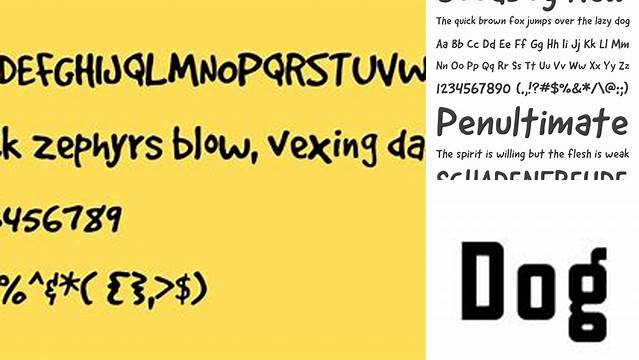
Introduction to Good Dog Font: A Playful and Versatile Typeface
Hey guys! Are you on the hunt for a font that perfectly balances playfulness and versatility? Look no further! The Good Dog font is here to add a touch of whimsy and charm to your projects. In this article, we're going to dive deep into what makes the Good Dog font so special, its features, its versatility, and why it might just be the perfect addition to your font library. Whether you're designing a children's book, creating eye-catching social media graphics, or sprucing up your website, understanding the ins and outs of the Good Dog font will help you make the most of its unique characteristics. This font isn't just about looking good; it's about communicating a feeling, an emotion, a vibe that resonates with your audience. We'll explore how this font can be used in various design contexts, from branding to editorial design, and give you practical tips on how to integrate it seamlessly into your projects. So, buckle up, font enthusiasts, and let's explore the wonderful world of the Good Dog font! We'll cover everything from its design inspiration to the nitty-gritty details of its licensing, ensuring you're well-equipped to use it effectively and legally. And don't worry, we'll keep it light and fun – because that's what the Good Dog font is all about!
What Makes the Good Dog Font Special?
So, what's the secret sauce that makes the Good Dog font stand out from the crowd? Well, it's all about its unique blend of fun and functionality. This font isn't your typical serious typeface; it's got personality! Think rounded edges, playful curves, and a generally friendly vibe. But don't let its playful nature fool you – it's also incredibly versatile. The Good Dog font is designed to be legible and readable in a variety of contexts, making it a great choice for everything from headlines to body text. One of the key things that sets this font apart is its attention to detail. The designers have clearly poured their hearts into creating a typeface that is both visually appealing and highly functional. Each character has been carefully crafted to ensure a consistent and harmonious look, whether you're using it in a large display or in smaller text sizes. The font's distinct personality shines through in its unique letterforms, which are full of character and charm. This makes it an excellent choice for projects that need a touch of warmth and approachability. Whether you're working on a project for kids, a friendly brand identity, or any design that needs a dose of fun, the Good Dog font is a fantastic option. Plus, the fact that it's available for free download makes it even more appealing! It's a fantastic way to add a professional touch to your projects without breaking the bank. But remember, free doesn't mean you should skimp on quality – the Good Dog font is a testament to how excellent design can be accessible to everyone. We'll delve more into its specific features and how you can best utilize them in the following sections.
Let's get down to the nitty-gritty and talk about the key features and characteristics of the Good Dog font. First off, you'll notice its rounded terminals and soft, flowing lines. These design elements give it a friendly and approachable feel, making it perfect for projects that need a touch of warmth. The font also boasts excellent legibility, which means it's easy to read in both large and small sizes. This is crucial for ensuring your message gets across clearly, whether you're designing a poster or writing body text for a website. Another standout feature is its versatility. The Good Dog font comes in a variety of weights and styles, giving you plenty of options to play with. You can choose from light, regular, bold, and even italic versions, allowing you to create a wide range of looks and feels. This flexibility makes it suitable for a multitude of design applications, from headlines and subheadings to body copy and call-to-action buttons. The character set is also quite comprehensive, including uppercase and lowercase letters, numbers, punctuation marks, and a selection of special characters. This ensures you have everything you need to create polished and professional designs. The font's consistent design across all characters is another significant plus. Each letterform complements the others, creating a cohesive and harmonious look. This attention to detail is what elevates the Good Dog font from a simple typeface to a powerful design tool. Furthermore, the font's clean and modern aesthetic means it pairs well with a variety of other fonts, giving you even more creative freedom. You can combine it with a more traditional serif font for a classic look, or pair it with a bold sans-serif for a contemporary feel. Ultimately, the Good Dog font's blend of charm, legibility, and versatility makes it a valuable asset for any designer. In the following sections, we'll explore how you can use these features to their full potential in your own projects.
Creative Ways to Use the Good Dog Font in Your Projects
Now that you've got the Good Dog font installed, it's time to unleash its creative potential! This font is incredibly versatile, so there are tons of ways you can use it in your projects. Let's explore some exciting ideas and get your creative juices flowing. First off, the Good Dog font is a fantastic choice for branding. Its friendly and approachable vibe makes it perfect for businesses that want to convey a sense of warmth and trustworthiness. Think about using it in your logo, website design, and marketing materials. It's particularly well-suited for brands that target families, children, or anyone looking for a personal touch. For example, a local bakery could use the Good Dog font in its logo to create a welcoming and homey feel. Or, a children's clothing brand could use it in its website design to add a playful and fun element. Another great application for the Good Dog font is in social media graphics. Its legible and eye-catching design makes it ideal for creating posts, banners, and ads that stand out in a crowded feed. Use it to create attention-grabbing headlines, highlight important information, or add a touch of personality to your brand's social media presence. If you're working on a print project, the Good Dog font is also an excellent choice. It's perfect for designing posters, flyers, brochures, and even book covers. Its clean and readable design ensures that your message gets across clearly, while its playful personality adds a unique touch. Consider using it for event invitations, educational materials, or any project that needs a friendly and approachable typeface. In the digital realm, the Good Dog font can shine in website and app design. Use it for headings, subheadings, and body text to create a cohesive and engaging user experience. Its legibility makes it a great choice for ensuring readability, while its unique character adds visual interest. Don't be afraid to experiment with different weights and styles to create visual hierarchy and emphasis. Remember, the key to using the Good Dog font effectively is to let its personality shine. It's a font that's meant to be noticed, so don't be afraid to use it boldly and creatively. In the next section, we'll take a look at some tips for pairing the Good Dog font with other typefaces to create even more dynamic designs.
Tips for Pairing Good Dog Font with Other Typefaces
Alright, let's talk about font pairings! Using the Good Dog font in isolation can be great, but pairing it with other typefaces can take your designs to the next level. The key is to find fonts that complement each other, creating a harmonious and visually appealing look. So, how do you do that? One of the best ways to pair the Good Dog font is to combine it with a more traditional serif font. This creates a nice contrast between the playful nature of Good Dog and the classic elegance of a serif typeface. Think about using a serif font for body text and the Good Dog font for headings or subheadings. This combination can give your designs a polished and sophisticated feel, while still maintaining a touch of warmth and approachability. Some excellent serif fonts to pair with Good Dog include Times New Roman, Georgia, and Garamond. These fonts are highly legible and have a timeless quality that complements the Good Dog font beautifully. Another option is to pair Good Dog with a clean and modern sans-serif font. This combination works well for designs that need a contemporary feel. Look for sans-serif fonts that have a similar weight and x-height to Good Dog to ensure a cohesive look. Good sans-serif pairings might include Open Sans, Lato, or Montserrat. These fonts are all highly versatile and pair well with a wide range of other typefaces. When pairing fonts, it's important to consider the overall tone and message you want to convey. For example, if you're designing a website for a tech company, you might want to pair Good Dog with a sleek and modern sans-serif font. On the other hand, if you're designing a brochure for a local bookstore, you might want to pair it with a more classic serif font. Don't be afraid to experiment with different font combinations to see what works best for your project. There are lots of online resources that can help you find font pairings, such as FontPair and Typewolf. These websites offer suggestions for fonts that work well together, taking the guesswork out of the process. Ultimately, the best way to find font pairings that you love is to trust your instincts and have fun with it! In the next section, we'll address some common questions about the Good Dog font, including licensing and usage.
Conclusion: Why Good Dog Font is a Great Choice for Your Next Project
So, there you have it! We've explored the wonderful world of the Good Dog font, and hopefully, you're as excited about it as we are. From its playful personality to its incredible versatility, this font has a lot to offer. But why should you choose the Good Dog font for your next project? Let's recap the key reasons. First and foremost, the Good Dog font is unique. Its rounded edges, soft lines, and friendly vibe set it apart from other typefaces. If you're looking for a font that will help your designs stand out and convey a sense of warmth and approachability, the Good Dog font is an excellent choice. It's perfect for brands that want to connect with their audience on a personal level, or for projects that need a touch of fun and whimsy. Another major advantage of the Good Dog font is its versatility. It works well in a wide range of applications, from branding and logo design to social media graphics and print materials. Whether you're designing a website, creating a poster, or writing a book, this font can adapt to your needs. Its excellent legibility ensures that your message gets across clearly, while its unique character adds visual interest. The fact that the Good Dog font is available for free download is another huge plus. You can add this fantastic typeface to your font library without spending a dime, making it a great option for designers on a budget. Just remember to check the font's license to ensure you're using it correctly. We've also explored some tips for pairing the Good Dog font with other typefaces. Combining it with a traditional serif font can create a classic and sophisticated look, while pairing it with a modern sans-serif font can give your designs a contemporary feel. Experiment with different font combinations to find what works best for your project. In conclusion, the Good Dog font is a fantastic choice for designers who want to add a touch of personality and warmth to their work. Its unique character, versatility, and free availability make it a valuable asset for any project. So go ahead, download the Good Dog font, and let your creativity run wild!